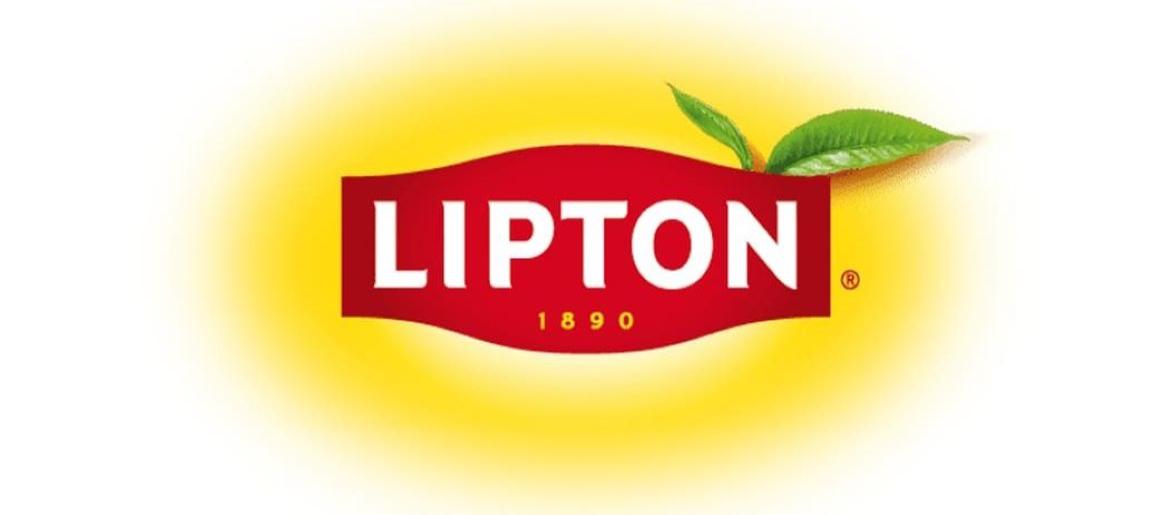
Lipton Font
What Font is Lipton?
The Lipton Font used in the 2025 logo redesign is a custom-designed typeface crafted specifically for the brand refresh. The word-mark now features uppercase letterforms with softened ends, slightly curved angles, and a bold, friendly presence. For practical design work, the typeface Mahameru Bold is a very close match in style. While Mahameru is a premium font, we’ve also located a free alternative font that captures its clean, modern sans-serif aesthetic — perfect for recreating the refreshed Lipton look without licensing cost.
About Lipton
Lipton is a globally recognised tea brand founded in 1890. In 2025—its 135th anniversary—the company unveiled a major global rebrand combining its iconic red cartouche, a refreshed logotype, and the addition of a green leaf graphic to signal freshness and dynamism. The update was aimed at modernising the brand while staying true to its heritage, with a cleaner, more contemporary visual identity to appeal to new generations of tea drinkers.